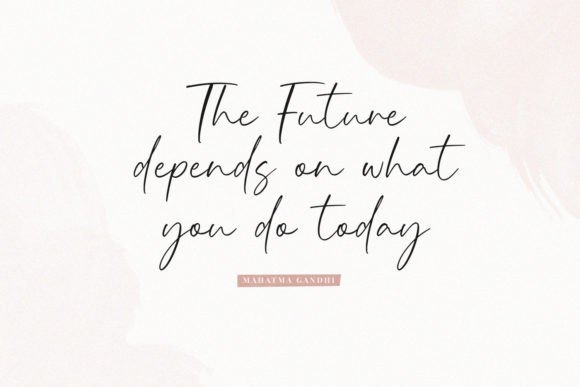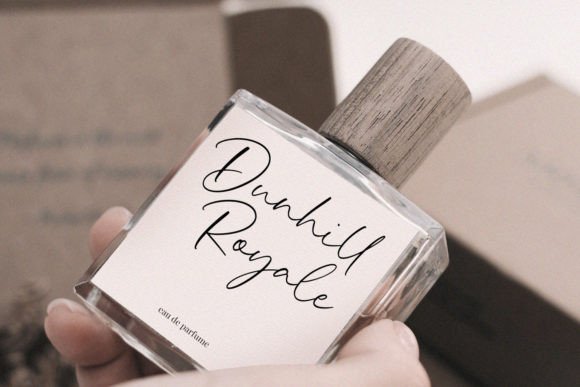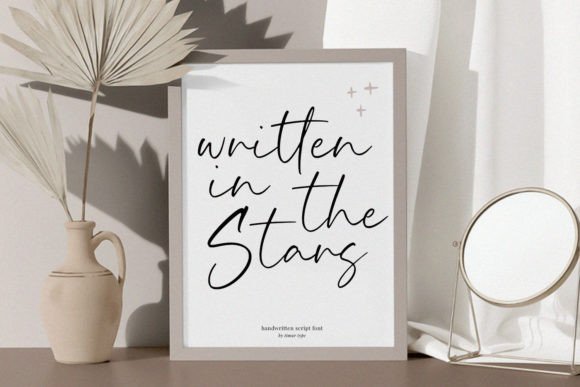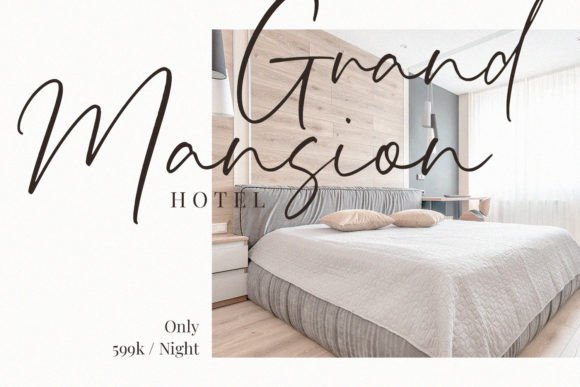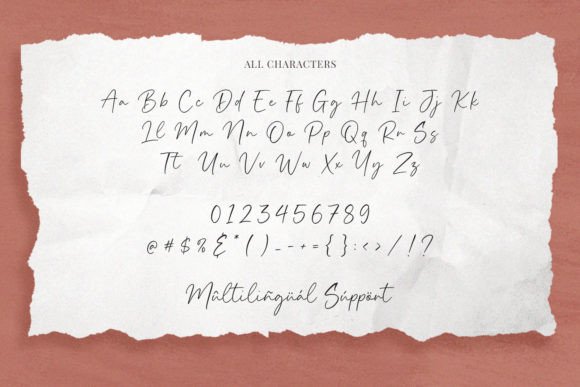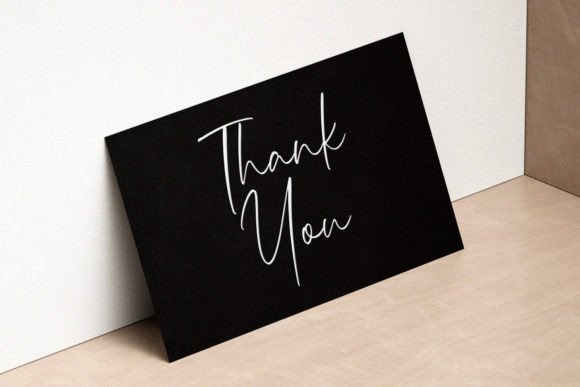
Introduction to Kingdoms Font
Imagine you’re brainstorming for a creative project, and you stumble upon the perfect handwritten font that elevates your design from ordinary to extraordinary. For many designers, this moment is pure bliss, and it’s exactly what Kingdoms Font aims to deliver. With its unique blend of elegance and playfulness, Kingdoms Font is the perfect addition to any design project.
| 📌 Product Name | Kingdoms Font |
| 👤 Author | Timur type |
Whether you’re working on a product packaging design, a branding project, or a magazine spread, Kingdoms Font is an excellent choice. Its high-quality design makes it perfect for expressing words above a transparent background, giving your design a touch of sophistication and charm. As a valuable design resource, Kingdoms Font is free to download, making it an attractive option for designers on a budget.
Key Features of Kingdoms Font
- High-quality design: Kingdoms Font is designed to meet the needs of creative projects, offering a unique and elegant style.
- Transparent background: The font’s transparent background allows for seamless integration into various design elements.
- Unique characteristics: The font’s intricate details and ornate design elements make it perfect for creating a regal or medieval-inspired atmosphere in designs.
- Design resource: Kingdoms Font is an excellent addition to any designer’s collection, providing a versatile and high-quality design resource for creative projects.
Honest Review: Kingdoms Font
I recently had the opportunity to work with Kingdoms Font on a creative project, and I must say, it’s been a game-changer. As a designer, I’m always on the lookout for high-quality design resources that can help bring my vision to life.
- ✨ Unique, regal aesthetic: Kingdoms Font has a distinctive, elegant feel that’s perfect for projects that require a touch of sophistication.
- ✨ High-quality glyphs: The font features crisp, well-designed glyphs that are sure to elevate any design project.
- ✨ Transparent background: The font also comes with a transparent background, making it easy to layer over other design elements.
While Kingdoms Font is an excellent addition to any designer’s toolkit, I do have a few minor quibbles. For example:
- ⚠️ Limited language support: While the font supports a wide range of languages, it’s not perfect, and some languages may not be fully supported.
- ⚠️ Not ideal for body text: Due to its ornate design, Kingdoms Font may not be the best choice for large blocks of body text.
Overall, I’m thoroughly impressed with Kingdoms Font, and I would highly recommend it to any designer looking for a high-quality, unique font for their creative project.
For a high-quality design, use the Kingdoms Font with a transparent background. This will allow you to combine it with other design elements seamlessly.
Common Use Cases for Kingdoms Font
Kingdoms Font is a versatile design resource that can be used in various creative projects, such as: